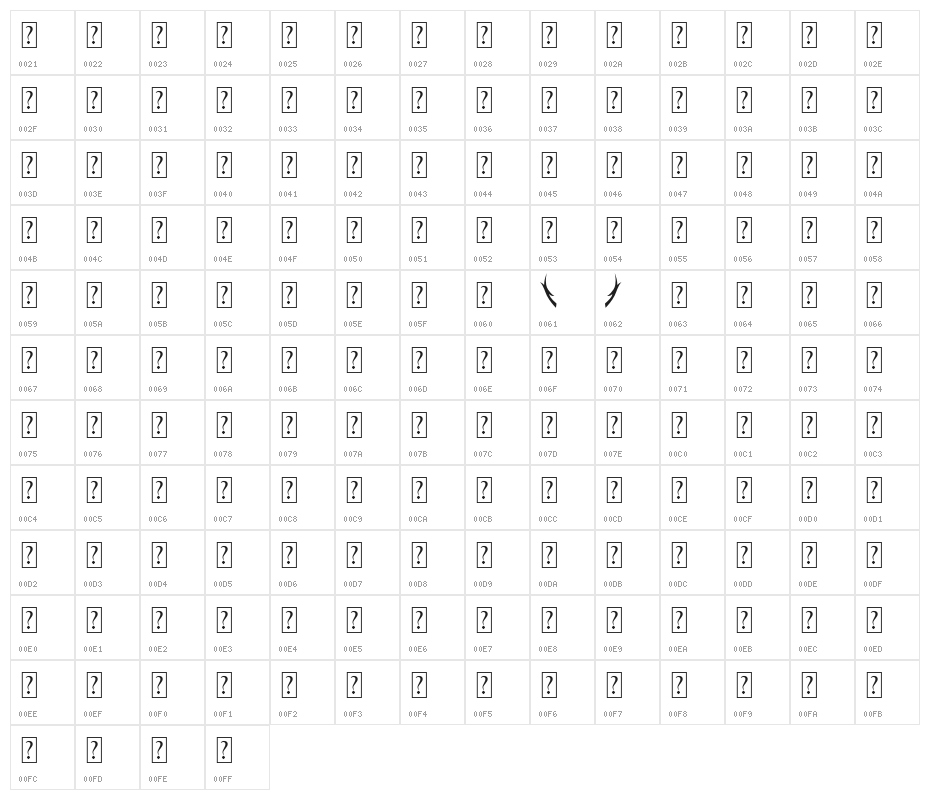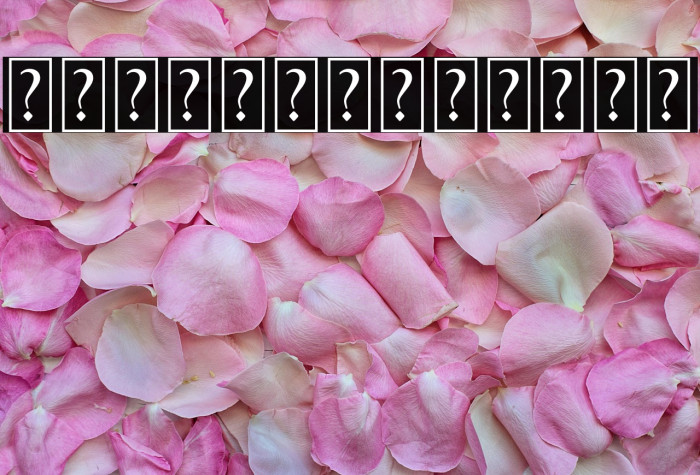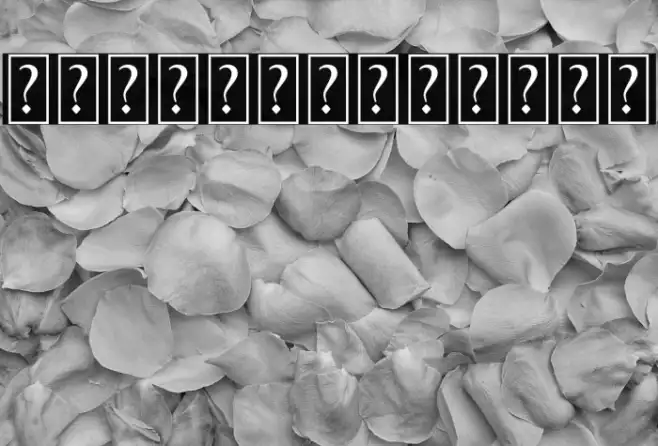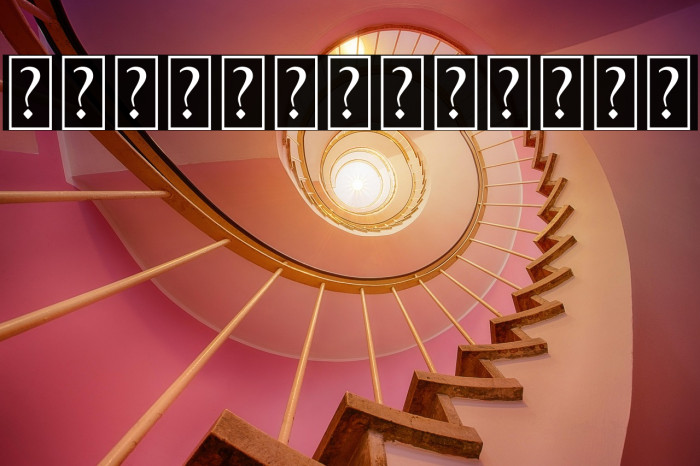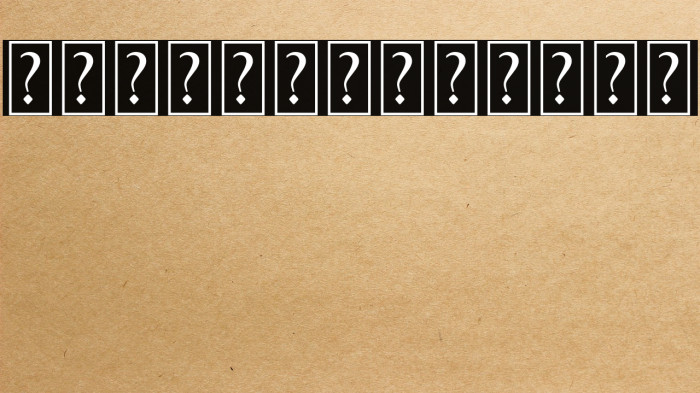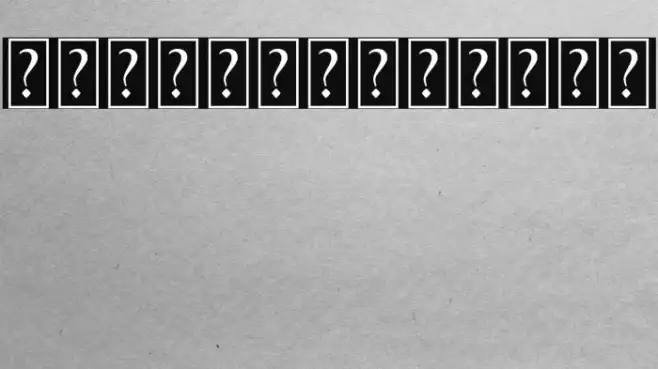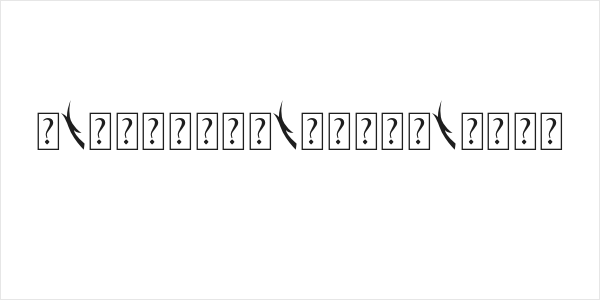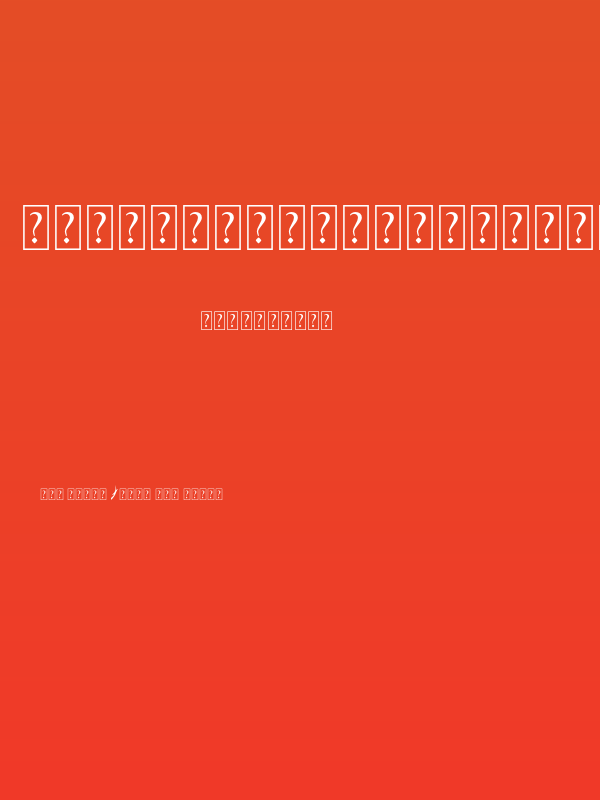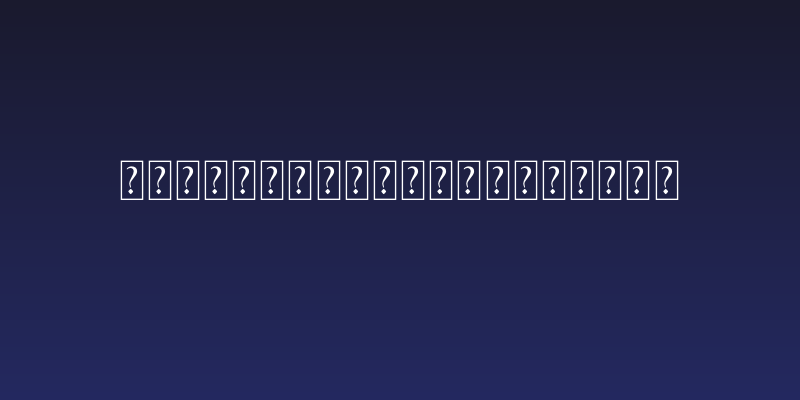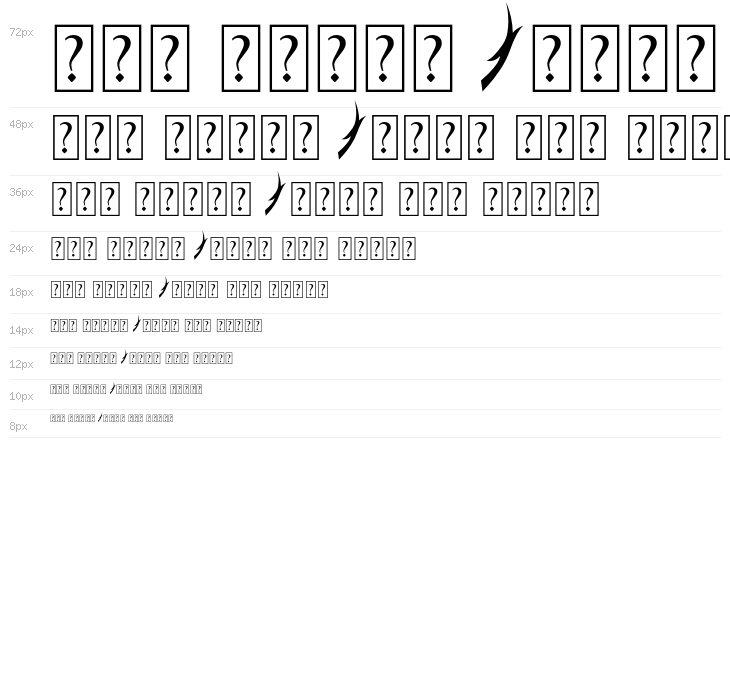
MatterOfFactOrnament Font
MatterOfFactOrnament Description
A decorative display typeface featuring bold, stylized question marks enclosed in rectangular borders, with a unique ornamental glyph resembling abstract antlers or wings. The characters are highly geometric and uniform, emphasizing symmetry and visual impact.